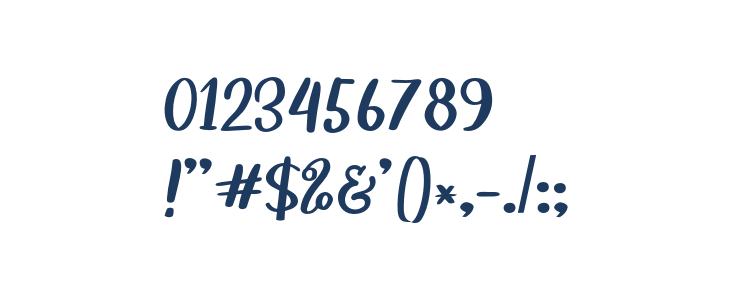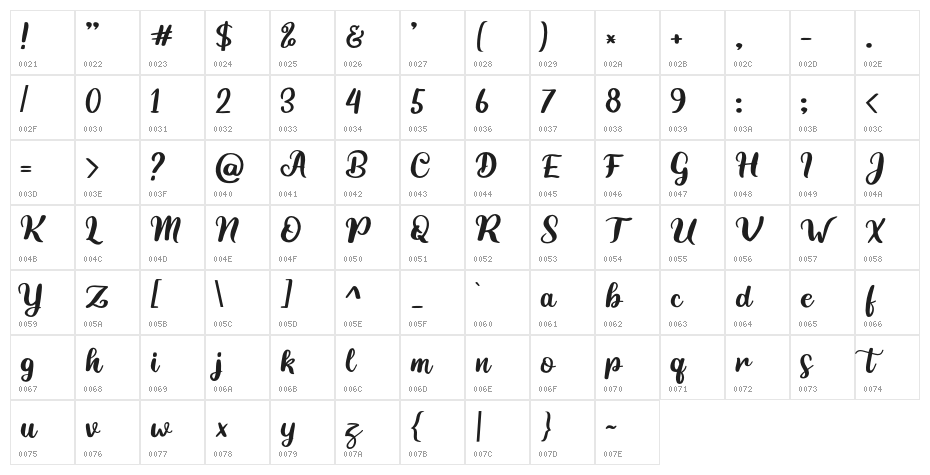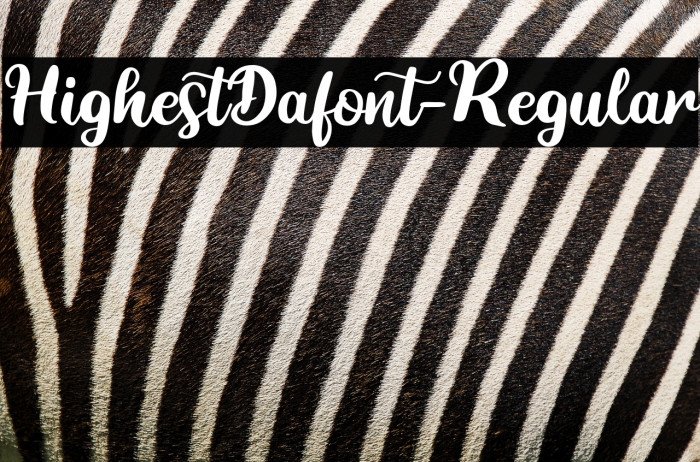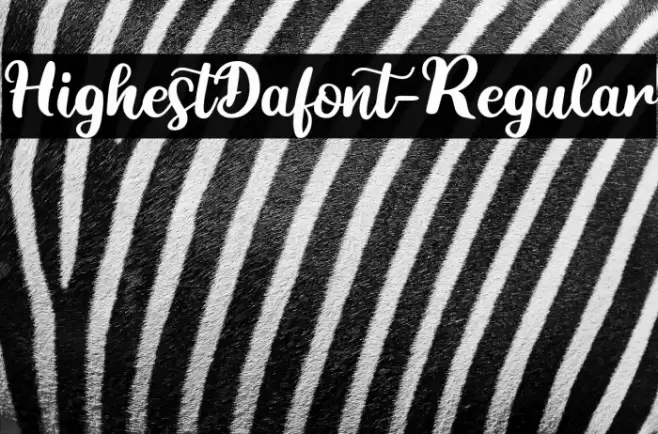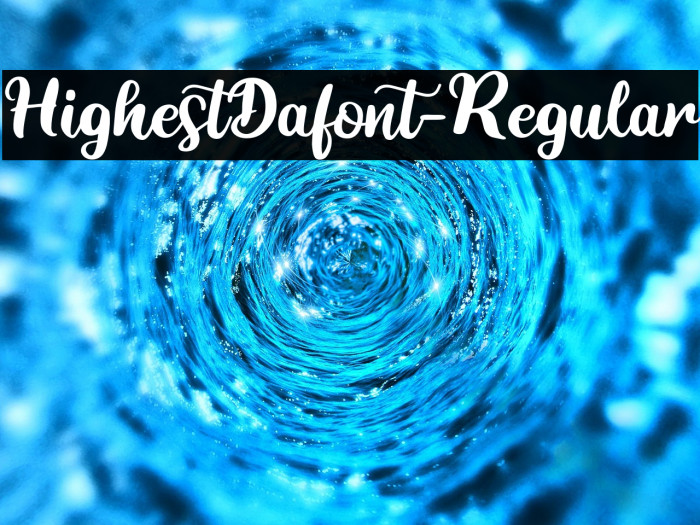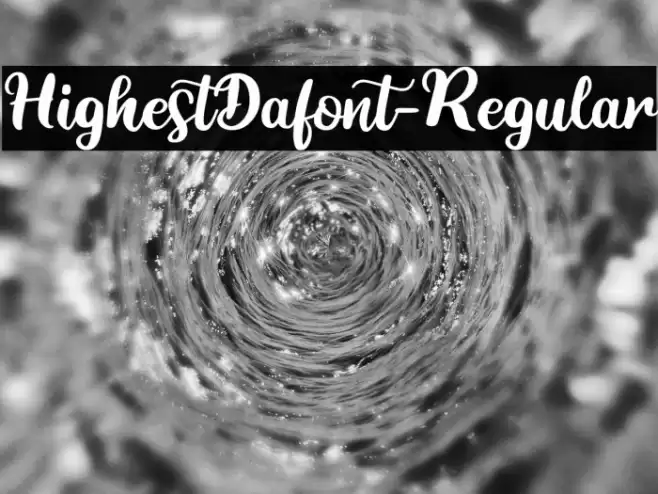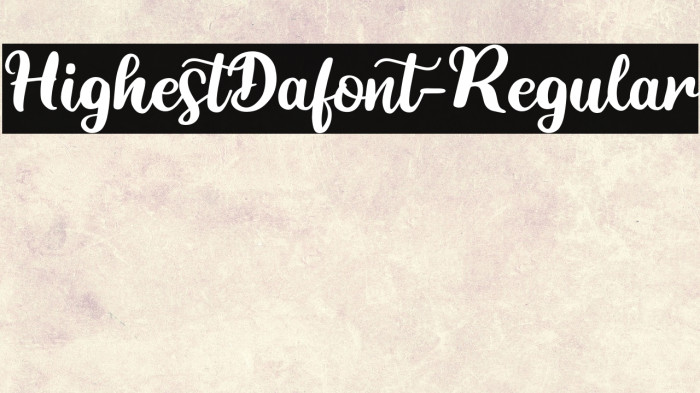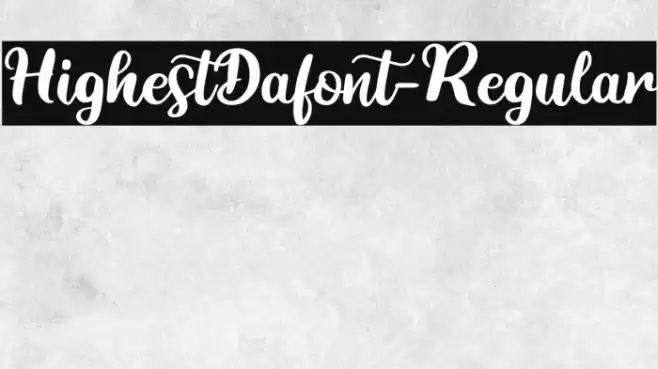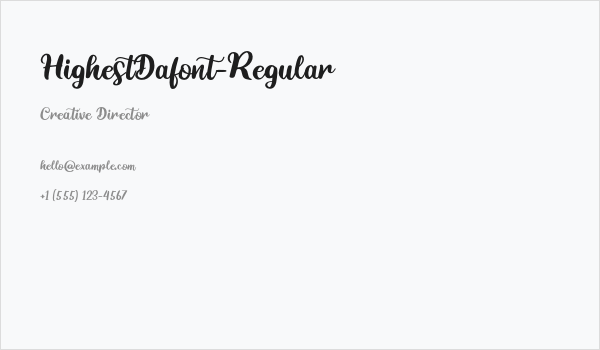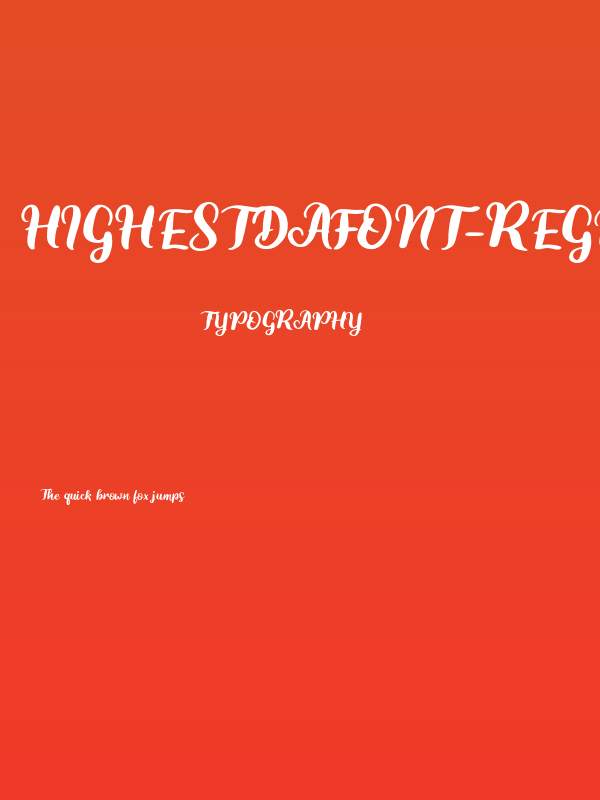
HighestDafont-Regular Font
HighestDafont-Regular Description
This font features a bold and flowing script style, characterized by its smooth, cursive letterforms that convey a sense of elegance and fluidity. The uppercase letters are slightly more ornate, with sweeping curves and flourishes, while the lowercase letters maintain a consistent rhythm and balance. The numbers and special characters are designed to complement the overall aesthetic, ensuring a cohesive look across all text. This font's bold weight and medium contrast make it highly legible, even at smaller sizes, while its decorative style adds a touch of sophistication.